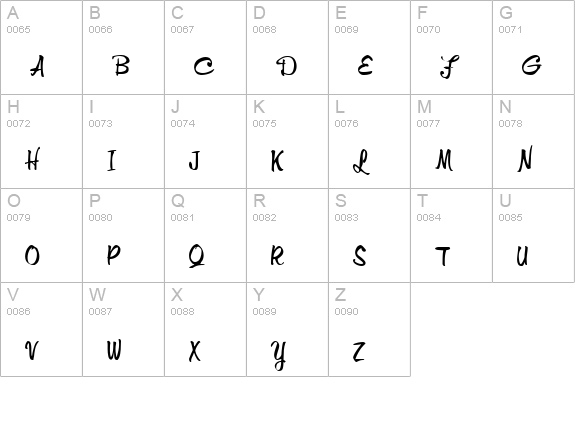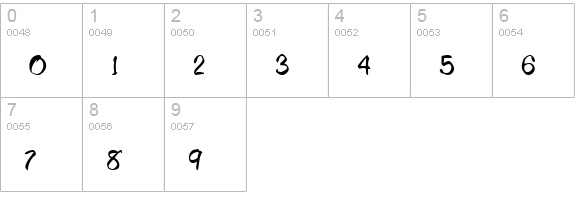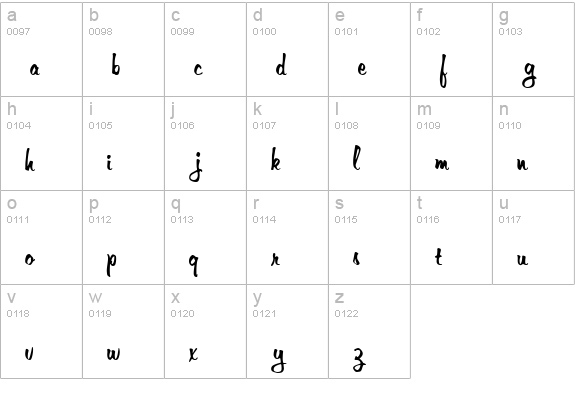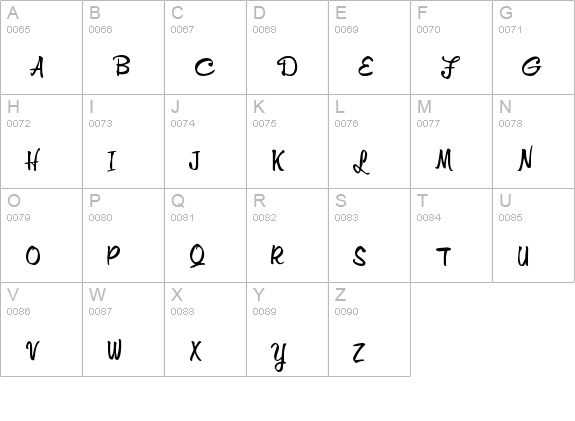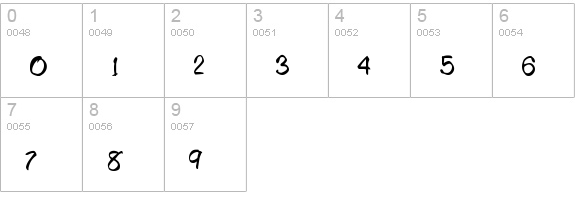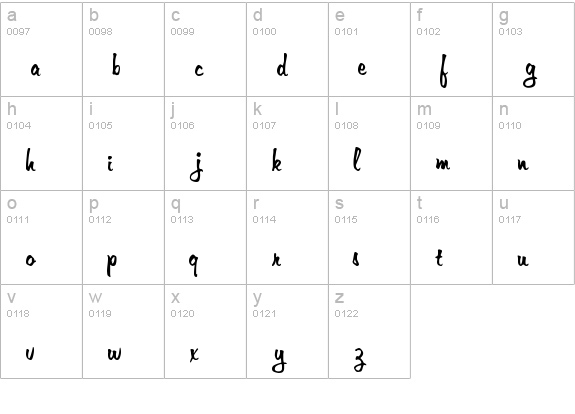
Genoveva Font Details
Genoveva font is a stunning display typeface that exudes elegance and sophistication. With its graceful curves and unique letterforms, Genoveva is perfect for adding a touch of class to any design project. This versatile font can be used for a wide range of applications, from branding and packaging to invitations and signage. The best part? Genoveva font is completely free to download at FontsMarket.com! Whether you're a professional designer looking to enhance your portfolio or a hobbyist creating personalized projects, Genoveva font is a valuable addition to your font collection. Don't miss out on the opportunity to elevate your designs with this exquisite typeface. Download Genoveva font today and start creating beautiful and memorable designs effortlessly.